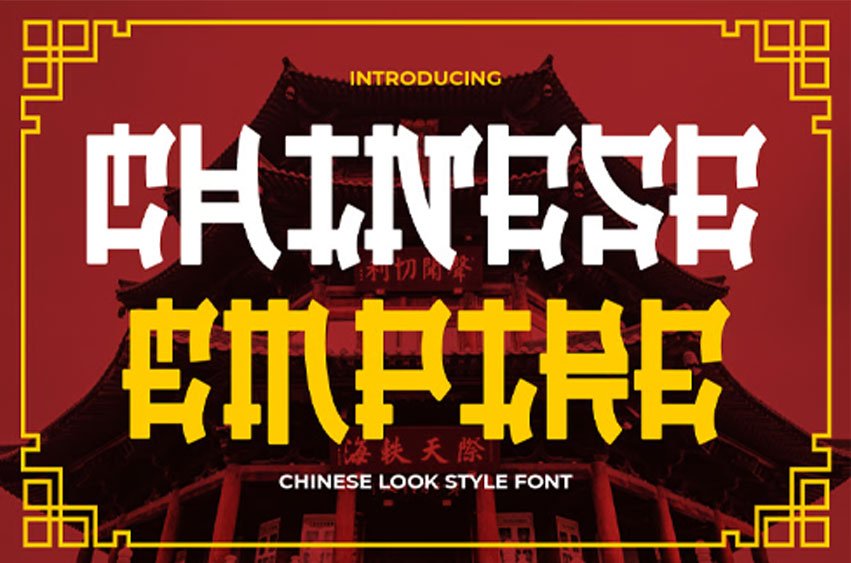
Chinese Empire Font Chinese Style Font is a bold display typeface inspired by traditional East Asian lettering forms. The characters use thick strokes, squared edges, and geometric cuts that create a strong structured presence. Vertical and horizontal lines feel sturdy, while sharp terminals add decorative tension. Several letters feature angular bends and stylized corners that echo classic cultural signage. The proportions appear wide and compact, helping words look solid and eye catching. Stroke weight stays heavy across the set, giving consistent impact in headlines. Chinese Empire Chinese Style Font blends heritage influence with modern readability. It delivers an energetic tone for logo design, food branding, and themed promotions. The style works perfectly for standout visual identities.
This typeface suits restaurant logos, noodle shops, dim sum brands, tea houses, and street food packaging. It also fits posters, menus, labels, stickers, banners, and advertising campaigns. Designers can use it for Lunar New Year themes, festival events, travel branding, and cultural promotions. The strong letterforms help titles remain clear from distance and in digital use. It works well for book covers, magazine headlines, movie titles, and souvenir branding. Chinese Empire Chinese Style Font gives businesses a memorable identity with cultural character. The decorative structure adds personality without losing legibility. Use it when a project needs bold flavor, tradition, and confident display impact.